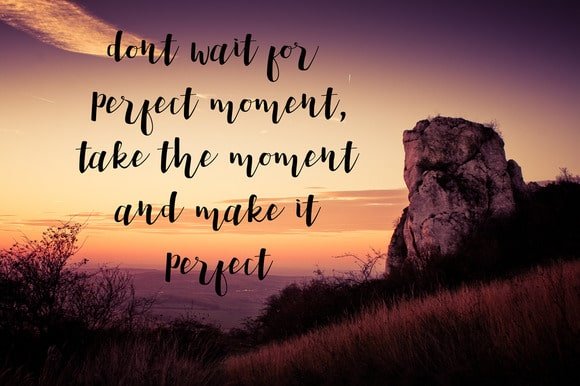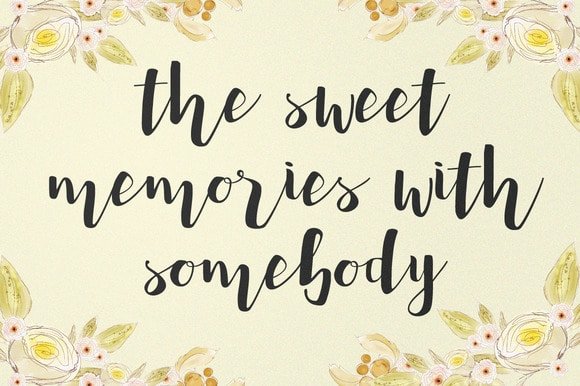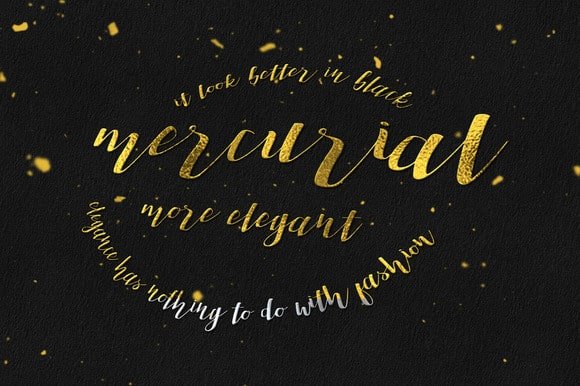
Penelope Font
Mercurial
Penelope brush script is a modern, hand-drawn script font. It has charm and looks very attractive. Can be used for a wide range of designs!